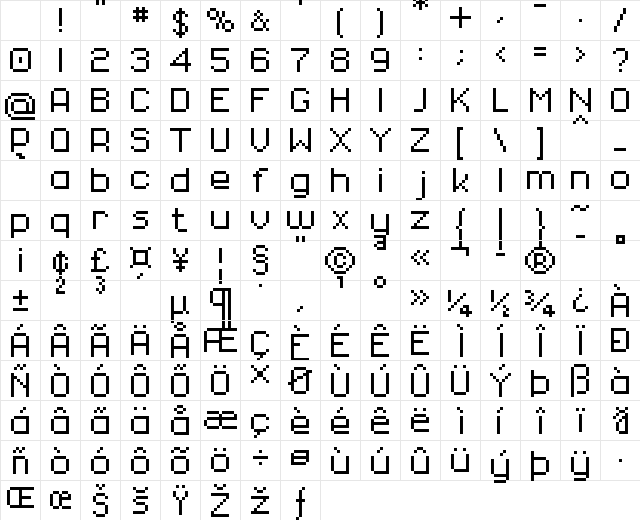
Complete 01Systematix8 Regular glyph index. Displaying only characters natively supported by 01Systematix8 Regular font.
01Systematix8 is a composed and adaptable typeface that performs quietly and consistently across a wide range of design contexts.